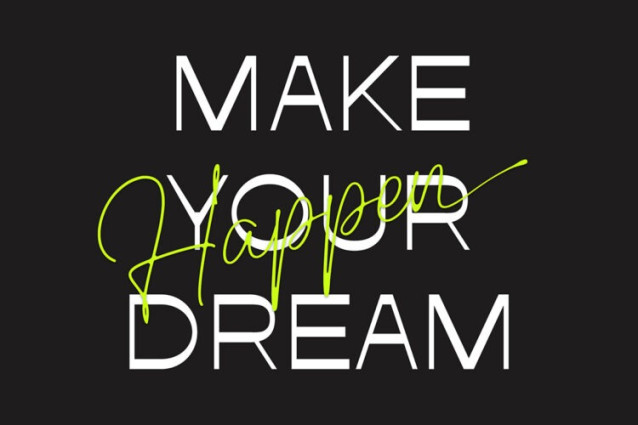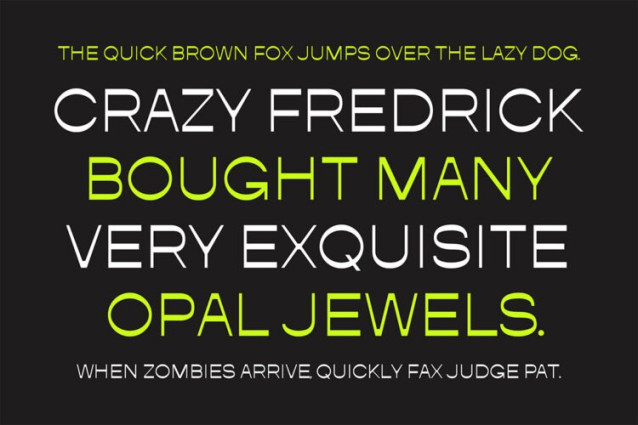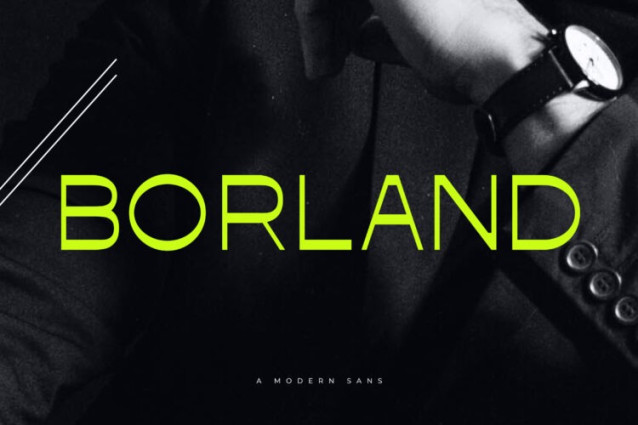
Borland Font
Borland Font – Modern Sans. Borland is a modern and simple font with more unique ligatures, best used as a display for headings, logos, branding, magazines, product packaging and invitations.